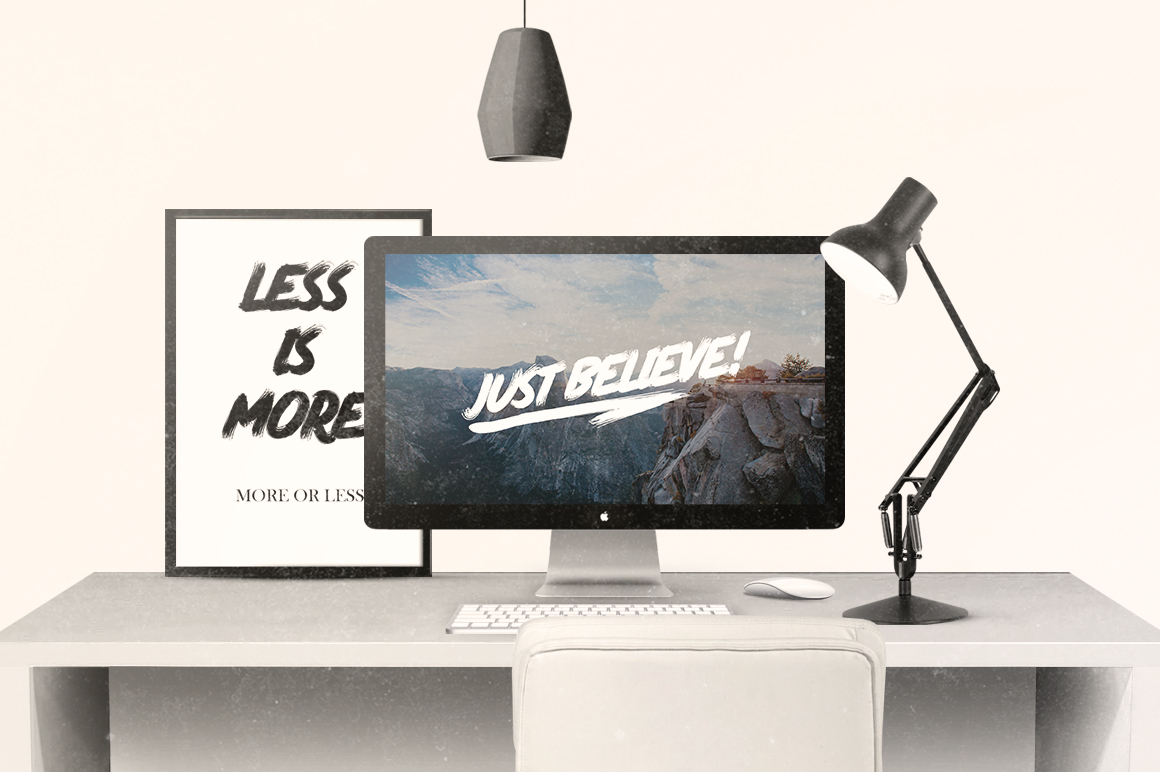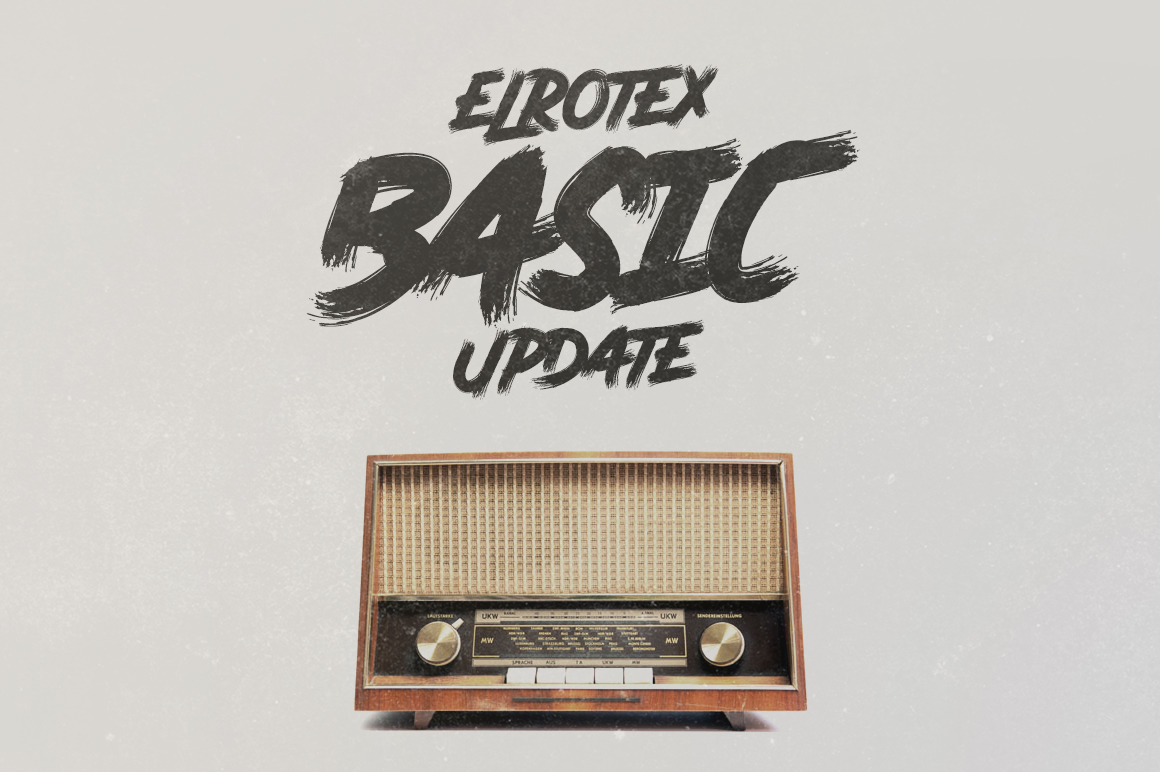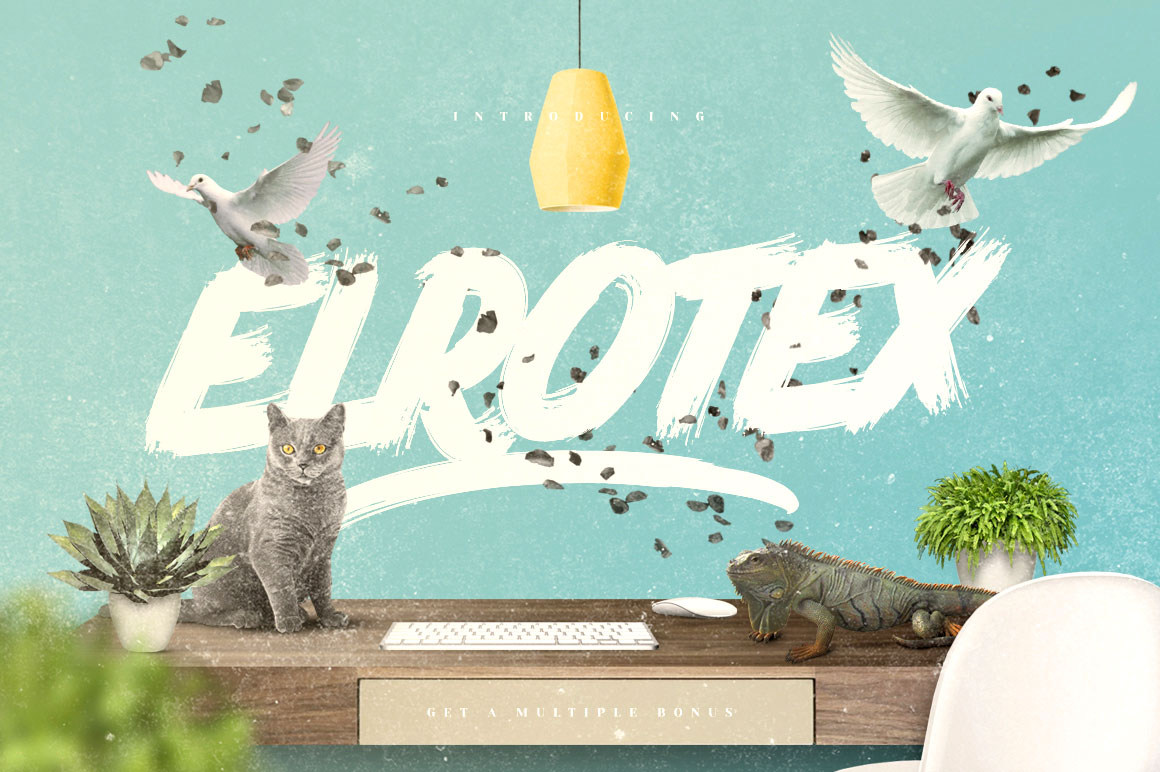
Elrotex Brush Font
Catch this cool brush typeface of two fonts that will help you to bring a beautiful handcrafted look in your design. Elrotex Brush is incredibly good fit for any creative project. We thank Maulana Creative for providing us with this wonderful freebie.